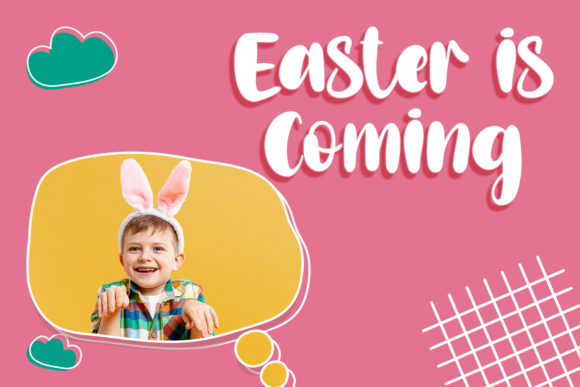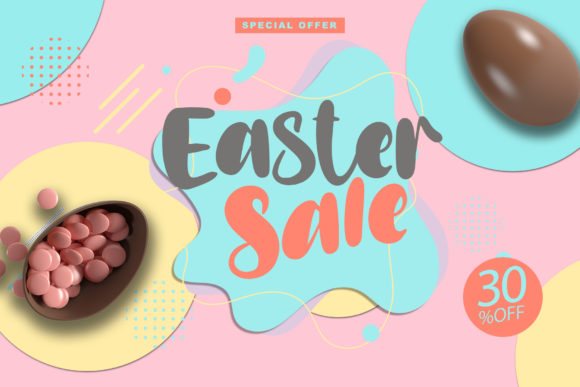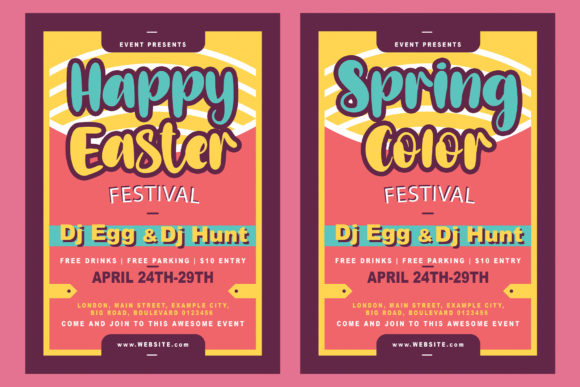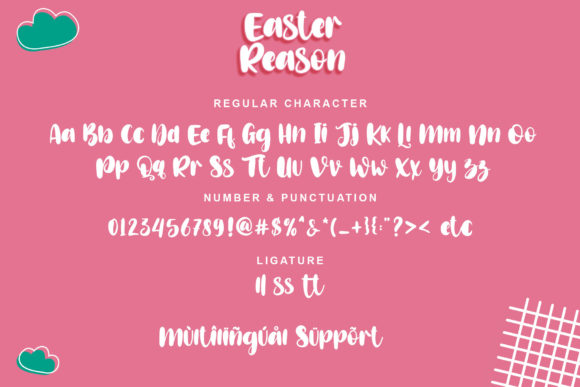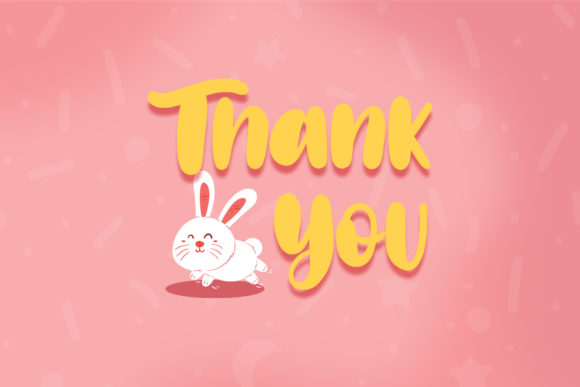
Easter Risen Font: The Perfect Addition to Your Easter Designs
Are you looking for a font that can add a touch of freshness and friendliness to your Easter designs? Look no further than the Easter Risen Font! This beautiful handwritten font is perfect for creating stunning logos, branding materials, Easter cards, invitations, and so much more.
What is Easter Risen Font?
Easter Risen is a fresh, relaxed, and friendly handwritten font that is sure to capture the spirit of Easter. Its unique and elegant design makes it perfect for a wide range of design projects, from Easter-themed crafts to branding and advertising materials. The font’s friendly and approachable feel makes it ideal for creating designs that are both fun and sophisticated.
Features of Easter Risen Font
Easter Risen Font comes with a range of features that make it perfect for designers and crafters. Some of its key features include:
- Handwritten design: Easter Risen Font has a beautiful handwritten design that gives it a personal and friendly feel.
- Fresh and relaxed feel: The font’s fresh and relaxed feel makes it perfect for creating Easter-themed designs that are both fun and sophisticated.
- Versatile: Easter Risen Font can be used for a wide range of design projects, from logos and branding materials to Easter cards and invitations.
- Easy to read: The font is easy to read, making it perfect for creating designs that need to communicate a message clearly.
Uses of Easter Risen Font
Easter Risen Font can be used for a wide range of design projects, including:
- Logos and branding materials: The font’s unique and elegant design makes it perfect for creating stunning logos and branding materials.
- Easter cards and invitations: Easter Risen Font is perfect for creating beautiful Easter cards and invitations that are sure to impress.
- Crafting projects: The font can be used for a wide range of crafting projects, from scrapbooking to card making.
- Digital designs: Easter Risen Font can be used for digital designs, such as social media graphics and blog posts.
Why Choose Easter Risen Font?
There are many reasons why you should choose Easter Risen Font for your Easter designs. Here are just a few:
- Unique design: Easter Risen Font has a unique and elegant design that will set your designs apart from the rest.
- High-quality: The font is high-quality and comes with a range of features that make it perfect for designers and crafters.
Tips for Using Easter Risen Font
Here are a few tips for using Easter Risen Font in your designs:
- Use it with Easter-themed designs: Easter Risen Font is perfect for Easter-themed designs, such as Easter cards and invitations.
- Experiment with different colors: The font looks great in a range of colors, so don’t be afraid to experiment and find the perfect color for your design.
- Pair it with other fonts: Easter Risen Font can be paired with other fonts to create a unique and interesting design.
- Use it for digital designs: The font can be used for digital designs, such as social media graphics and blog posts.
Easter Risen Font is a beautiful and versatile font that is perfect for designers and crafters. Its unique and elegant design makes it perfect for creating stunning Easter-themed designs, from logos and branding materials to Easter cards and invitations. With its range of features and ease of use, Easter Risen Font is an excellent choice for anyone looking to add a touch of freshness and friendliness to their designs.